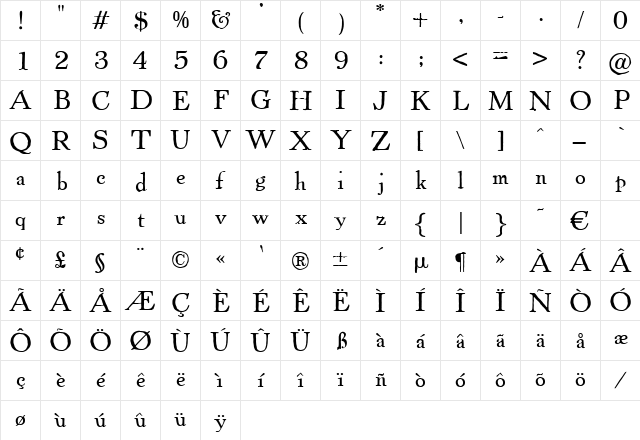
CrawfordOldStyle Regular
Design Context for CrawfordOldStyle Typeface
CrawfordOldStyle brings classic typographic sensibility to the table — its serifs and measured letterforms reflect centuries of print heritage.
Pro Tip: Use CrawfordOldStyle for editorial body copy and considered headline work. Pair with a neutral sans for UI elements or captions to create a classic hierarchy.